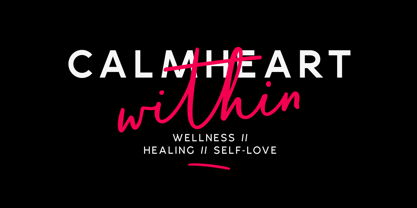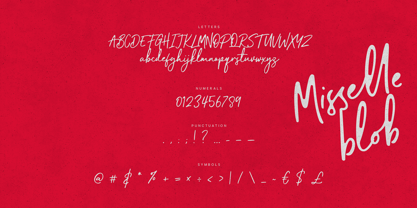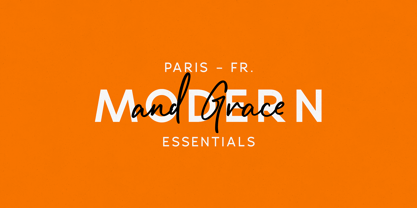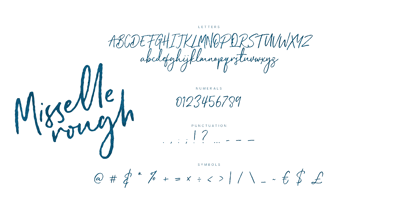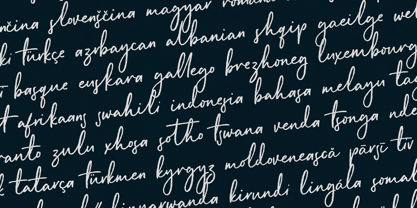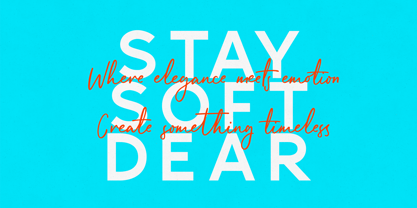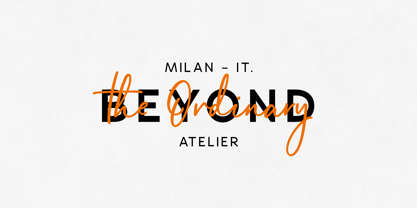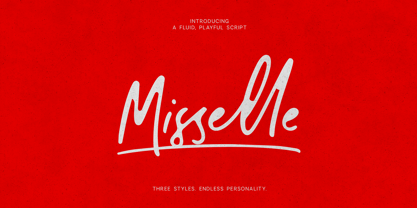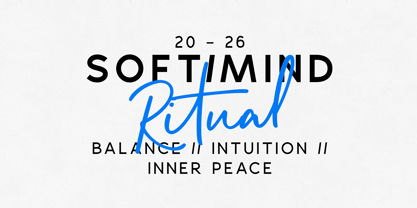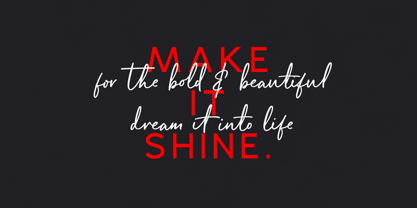
Misselle
The Misselle Font Family was designed by Vladimir Fedotov, Plamen Petrov and published by VP Creative Shop. Misselle contains 4 styles and family package options. More about this family
Meet Misselle, an expressive handwritten script font family created for designs that need movement, personality, and a confident human touch.
Misselle includes three distinctive styles:
Regular — smooth, fluid, and versatile Blob — soft, playful, and full of character Rough — textured, organic, and authentically handmade
Switch between the three styles to create polished branding, expressive headlines, natural signatures, or bold handwritten compositions. The collection also includes 26 expressive swashes, giving you more freedom to build custom-looking logos, lettering, and decorative typography.
Misselle works beautifully for logos, brand identities, packaging, editorial layouts, social media graphics, posters, invitations, quotes, product labels, and creative campaigns. Whether you need something elegant, spontaneous, playful, or imperfect, Misselle gives every word its own personality.